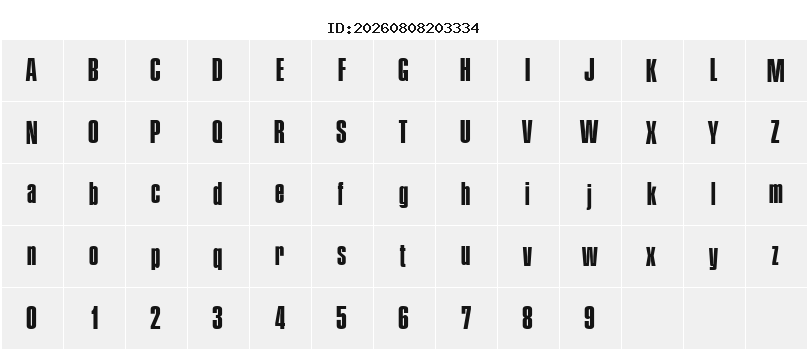
• Font Name: PlaketteThree
• Full Font Name: PlaketteThree Regular
About PlaketteThree.ttf
PlaketteThree.ttf is a modern, elegant sans-serif font designed for ultimate readability and visual harmony. Perfect for branding, headlines, web design, and print materials.